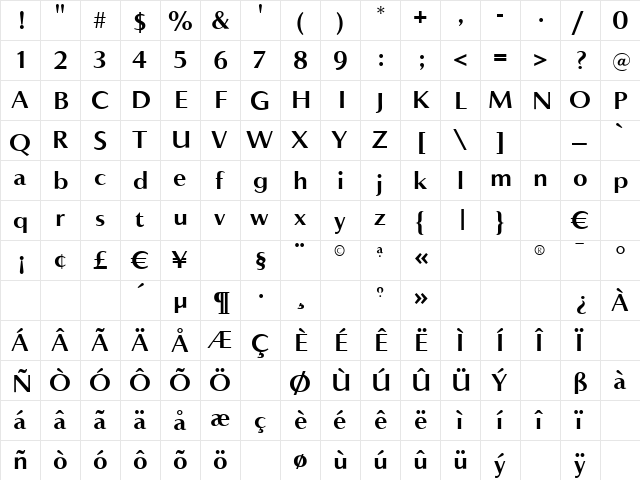
AccentGraphicBold Regular
Design Context for AccentGraphicBold Typeface
AccentGraphicBold is a composed and adaptable typeface that performs quietly and consistently across a wide range of design contexts. Its bold stroke weight gives it real presence on the page.